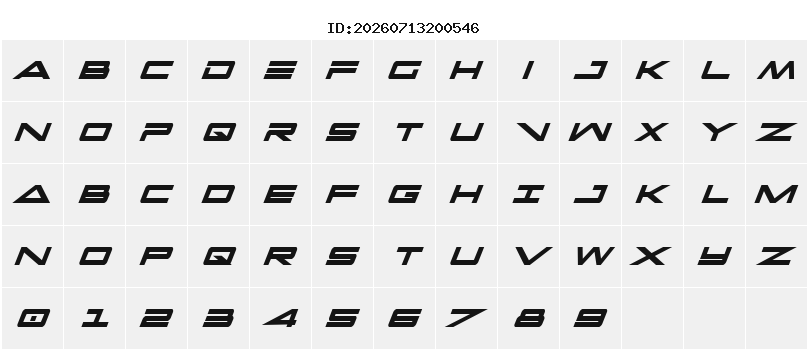
Capella Condensed Bold Italic Preview
• Font Name: Capella Condensed Bold Italic
• Font Style: Condensed Bold Italic
• Full Font Name: Capella Condensed Bold Italic
• PostScript Name: CapellaCondensedBoldItalic
About Capella Condensed Bold Italic.ttf
Capella Condensed Bold Italic.ttf is a modern, elegant sans-serif font designed for ultimate readability and visual harmony. Perfect for branding, headlines, web design, and print materials.